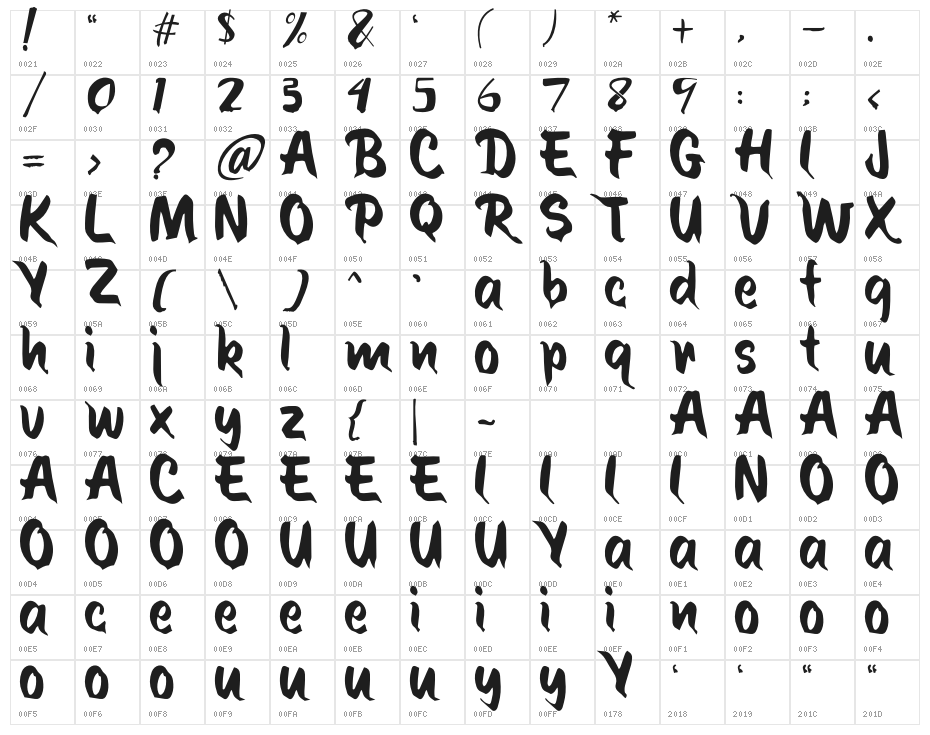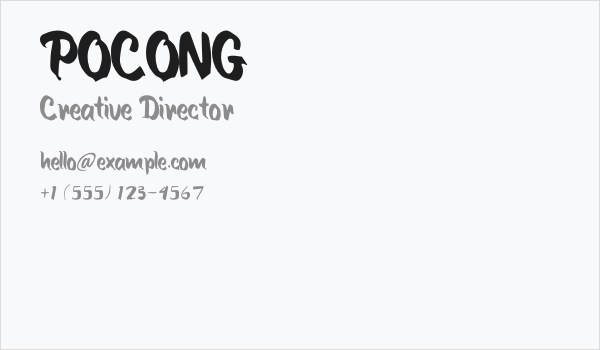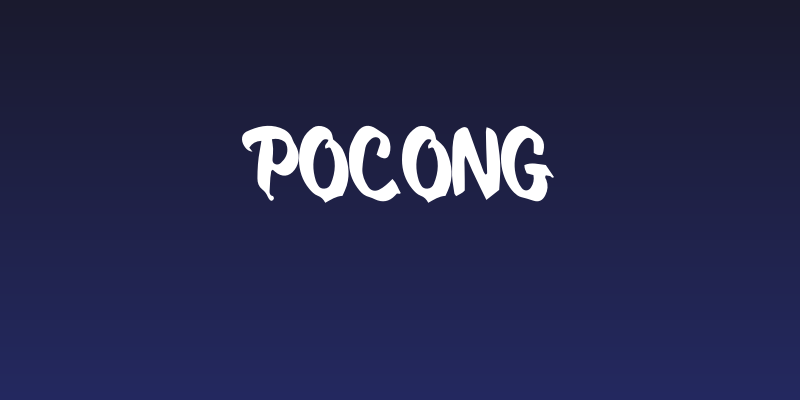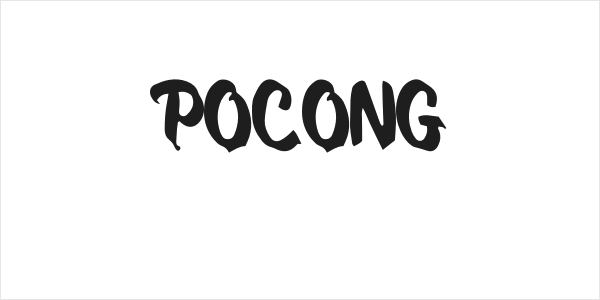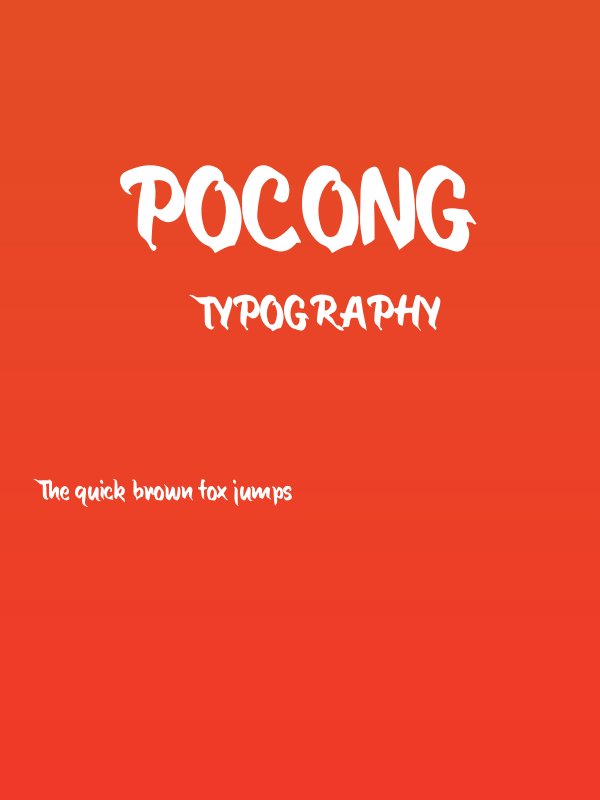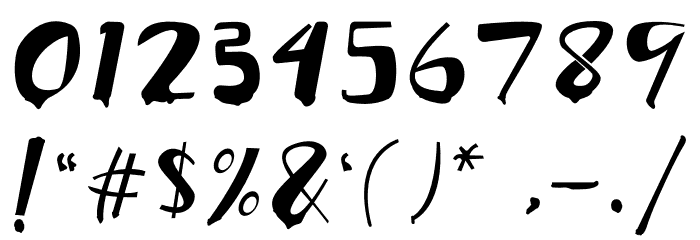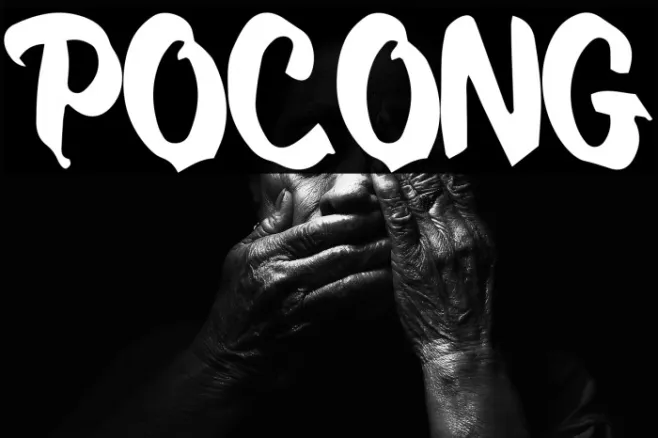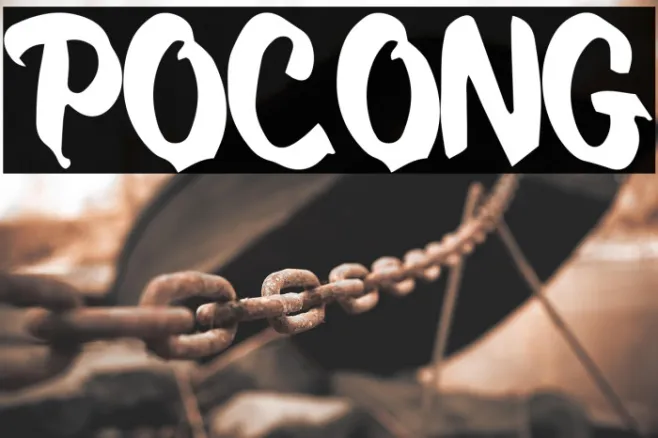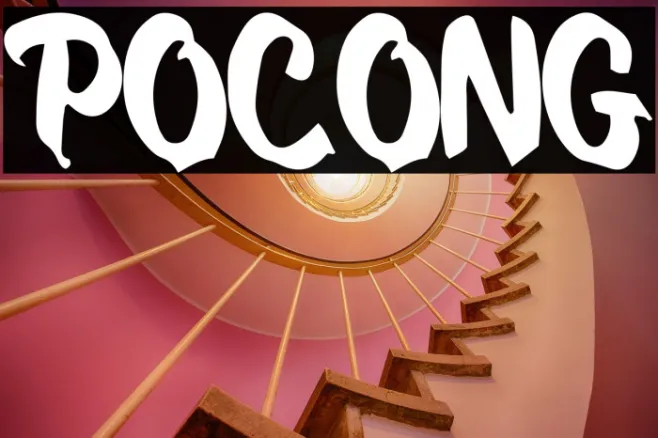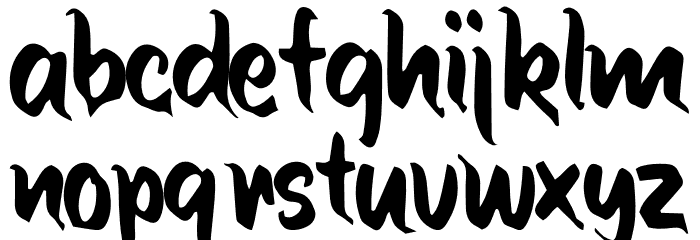
POCONG Font
POCONG Description
This font features a bold and expressive style with a handwritten appearance. The characters are crafted with a brush-like texture, giving them a dynamic and energetic feel. The uppercase and lowercase letters maintain a consistent flow, with slightly exaggerated curves and strokes that add to the overall artistic flair. The numbers and special characters are equally expressive, maintaining the same brush-like quality. This font is ideal for projects that require a personal touch or a creative, informal vibe. Its unique style makes it stand out, making it suitable for eye-catching designs.
| Proposed Projects | Ideal for posters, branding, invitations, and creative projects that require a personal touch. |